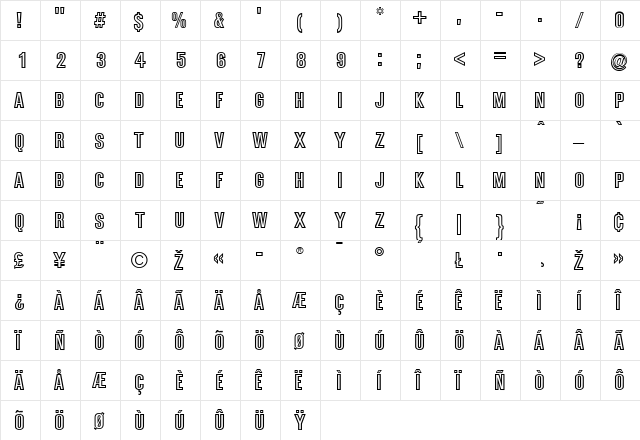
BoldSansOutline Regular
Design Context for BoldSansOutline Typeface
BoldSansOutline brings ornamental detail and strong personality to headlines and identities, where visual impact matters more than quiet functionality. Its bold stroke weight gives it real presence on the page.
Font Pairing: Pair with a clean neutral sans-serif for body copy to let BoldSansOutline's character lead without overwhelming the composition.
Pro Tip: Treat BoldSansOutline as the centrepiece of your typographic hierarchy. One strong heading set in a decorative face can carry an entire layout.